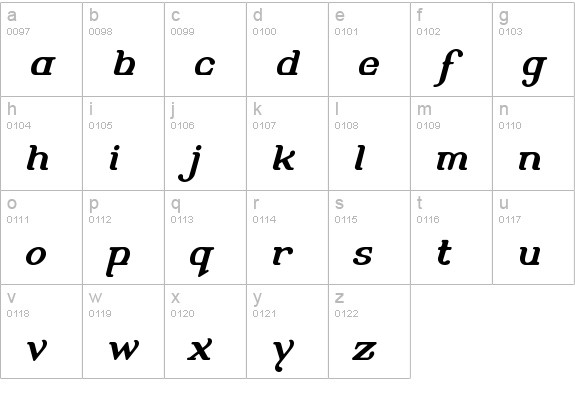
Alembic-BoldItalicOne font is a bold and stylish typeface that adds a touch of sophistication to any design project. Its slanted italic style conveys a sense of dynamic movement and modernity, making it perfect for headlines, titles, and other eye-catching text. The strong and bold letterforms exude confidence and make a statement. This font is not only visually striking but also versatile, suitable for a wide range of design applications. Whether you're working on a branding project, advertising campaign, or editorial design, Alembic-BoldItalicOne font will elevate your work and capture the attention of your audience. Best of all, this font is free to download at FontsMarket.com, making it accessible to designers of all levels. Don't miss out on the opportunity to add this striking typeface to your font collection and enhance your design projects with its bold and italic flair.